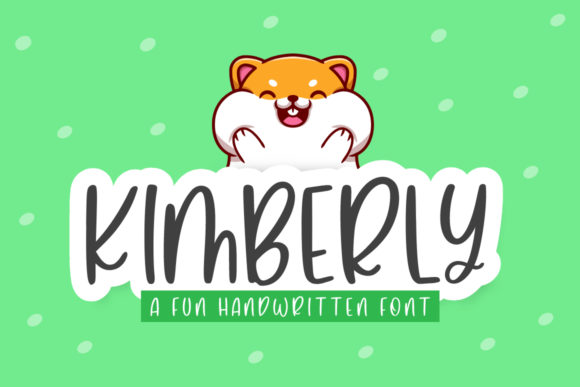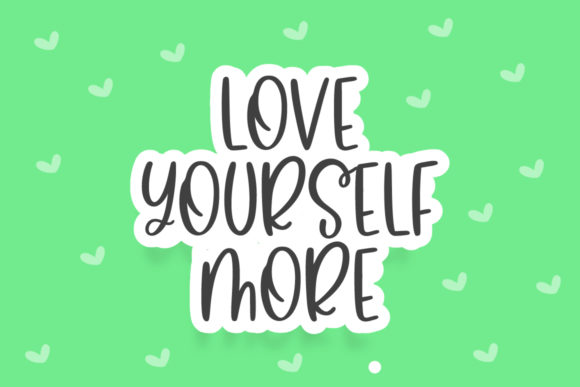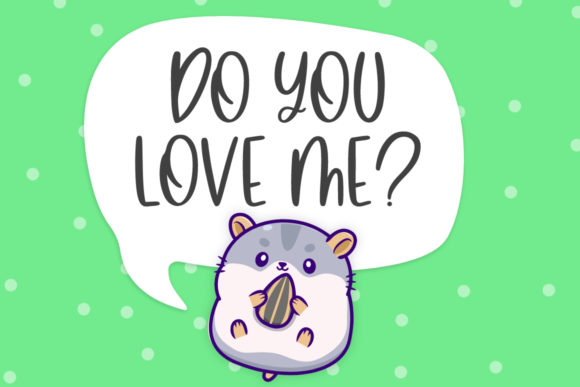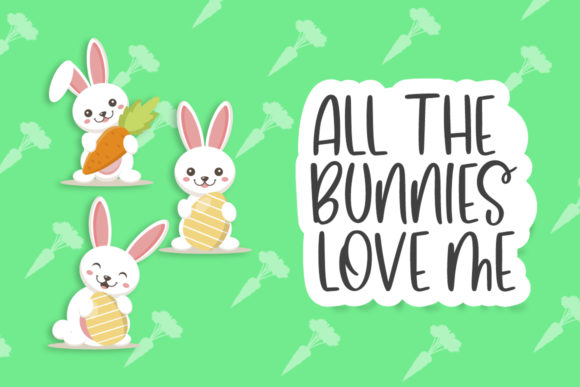
About Kimberly Font
Kimberly is a friendly and cute handwritten font. It is playful and a little bit quirky. Add this font to your social media posts, posters, cards and cute greeting cards.